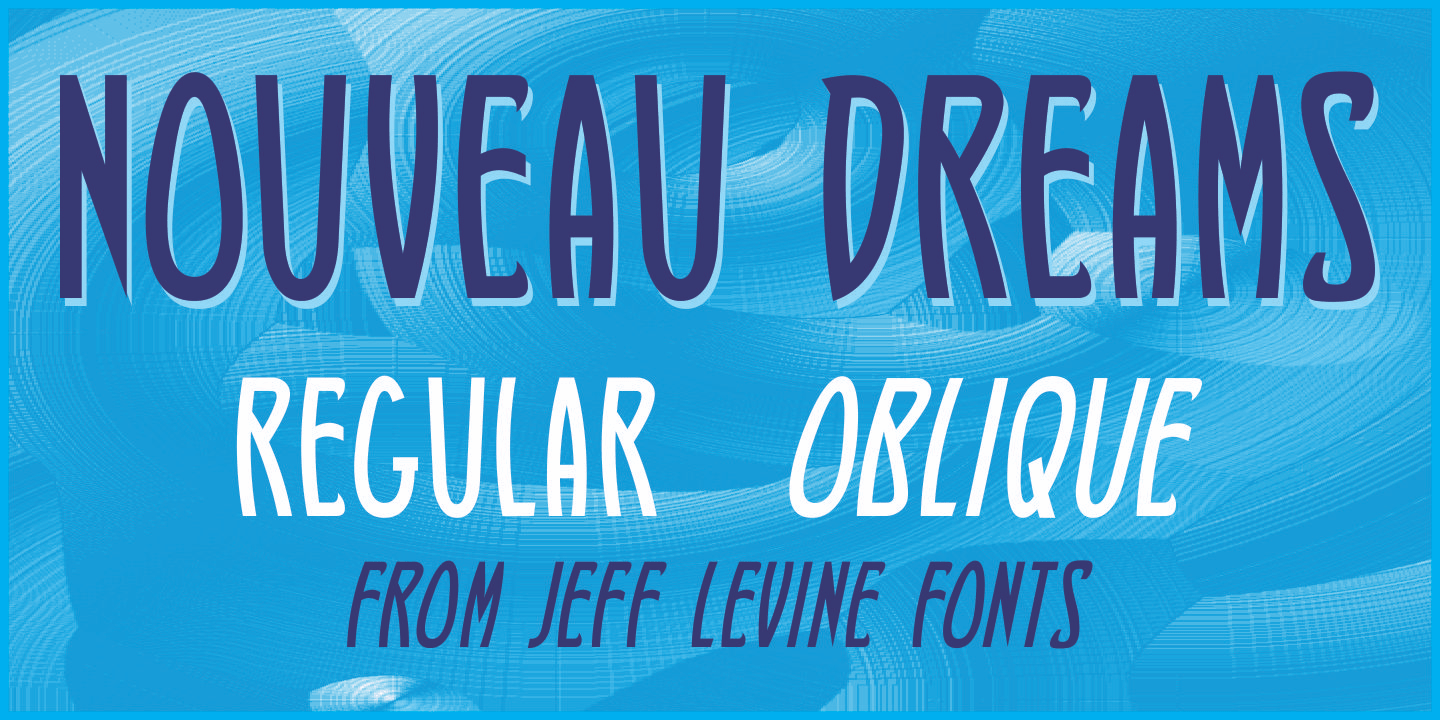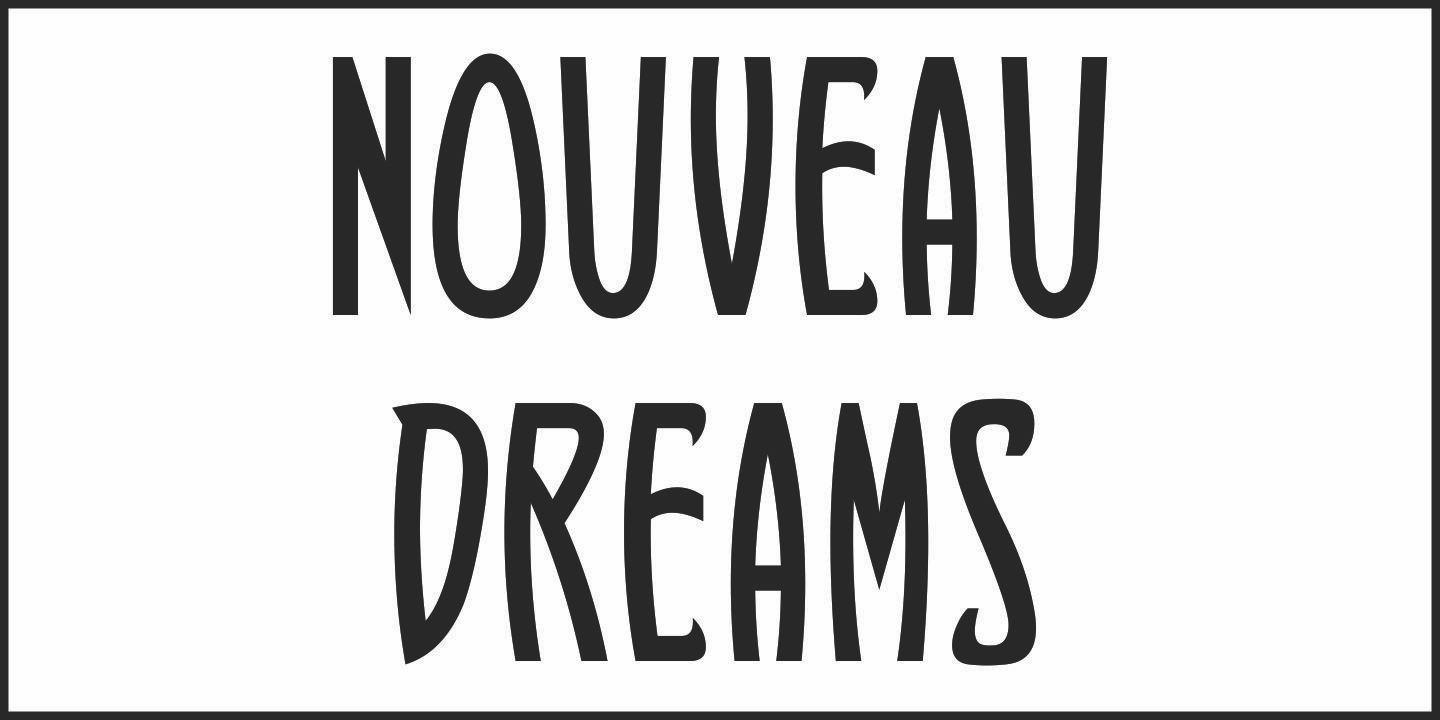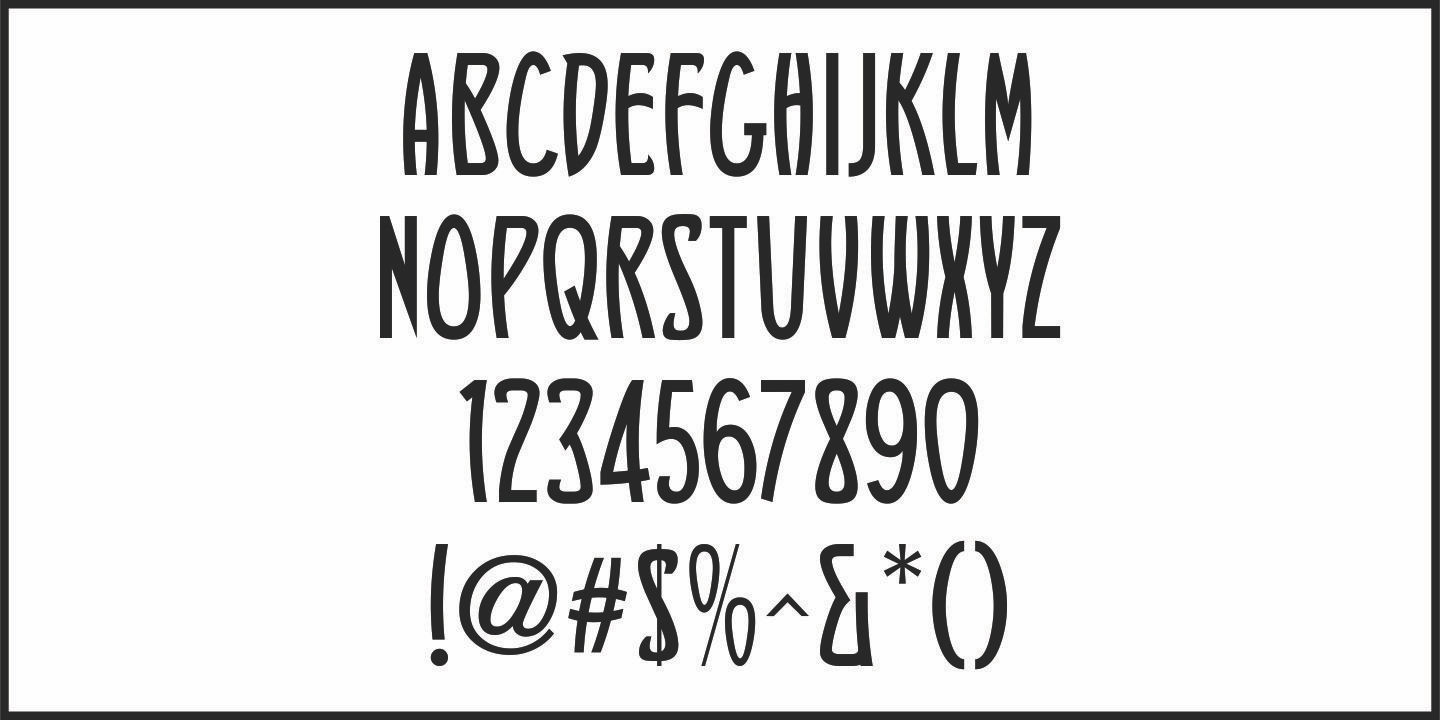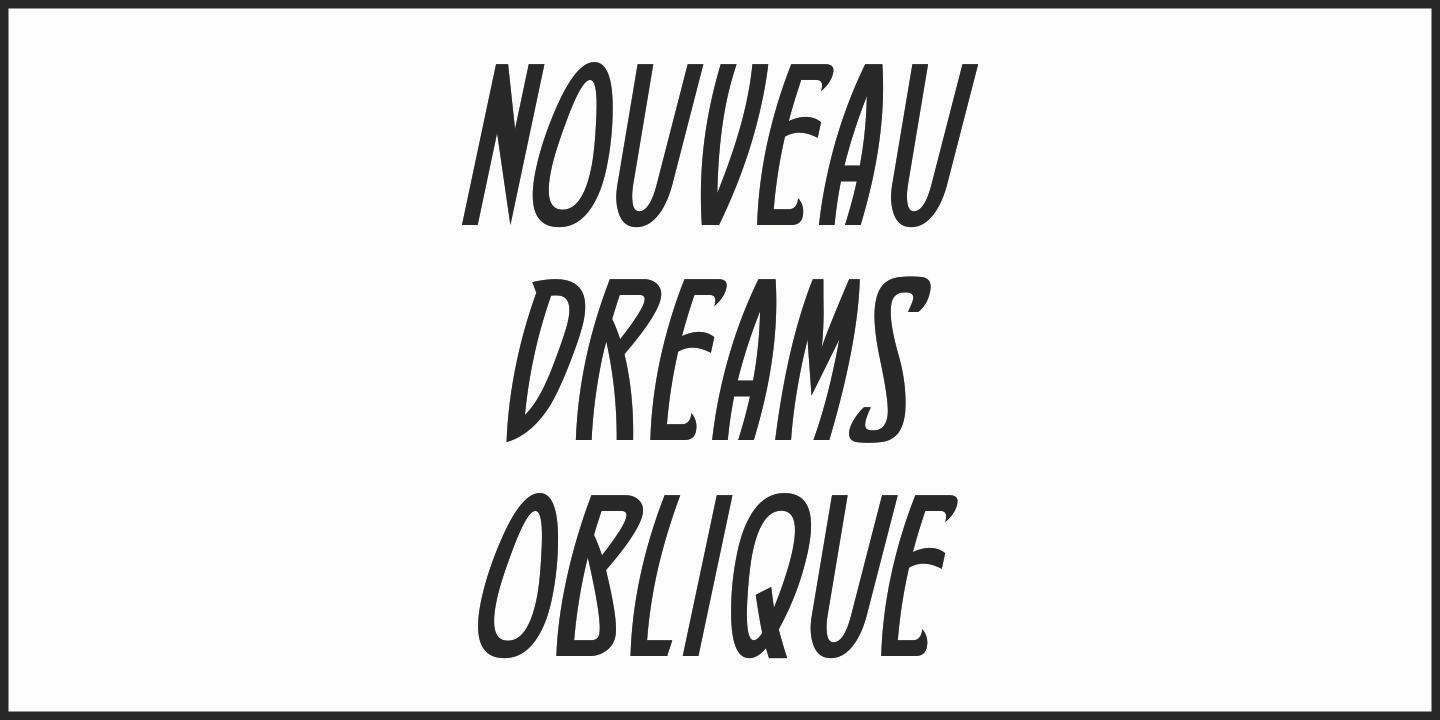
Nouveau Dreams
The 1910 sheet music for 'In All My Dreams I Dream of You” had the title hand lettered in an eclectic sans serif that typified the free form Art Nouveau movement of the time.
The lettering was recreated digitally as Nouveau Dreams JNL, and is available in both regular and oblique versions.